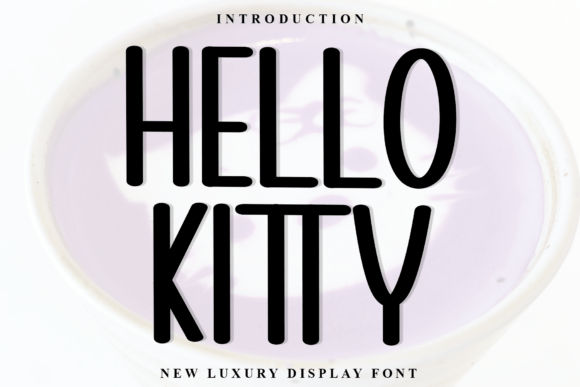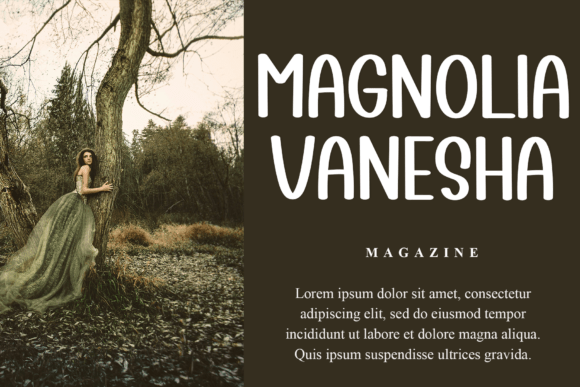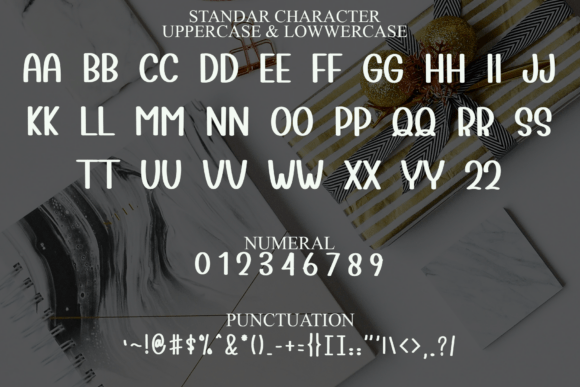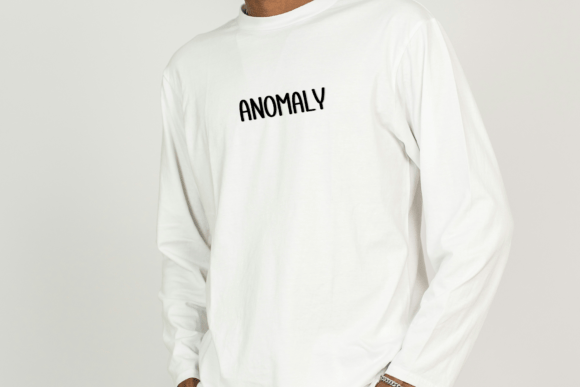
Hello Kitty Font: A Cute Handwritten Font for Cricut & Crafts
About the Hello Kitty Font
Experience the unique personality of Hello Kitty Font, a font designed for impact. Hello Kitty is a simple handwritten font. This versatile font has a wide spectrum of applications ranging from greeting cards to headlines and is guaranteed to add a simple and natural feel to your next project!
Its friendly, approachable style makes it ideal for children’s books, branding for playful products, or packaging for sweet treats. It excels in headlines, short bursts of text, and on social media graphics where its informal charm shines. However, its legibility suffers in longer blocks of text and smaller sizes, making it unsuitable for body copy or UI elements requiring high readability.
Consider pairing Hello Kitty with a clean sans-serif like Open Sans for a balanced contrast, or a playful script font like Pacifico for a more whimsical feel. A geometric sans-serif like Montserrat could provide a modern counterpoint, adding structure to the handwritten informality.
The font’s core personality is undeniably cheerful and approachable, conveying a sense of youthful energy and friendliness. Its simplicity ensures it doesn’t overwhelm other design elements, allowing it to act as a supporting player or a charming focal point depending on the application.
Hello Kitty Font Usage Examples
Hello Kitty Font Example